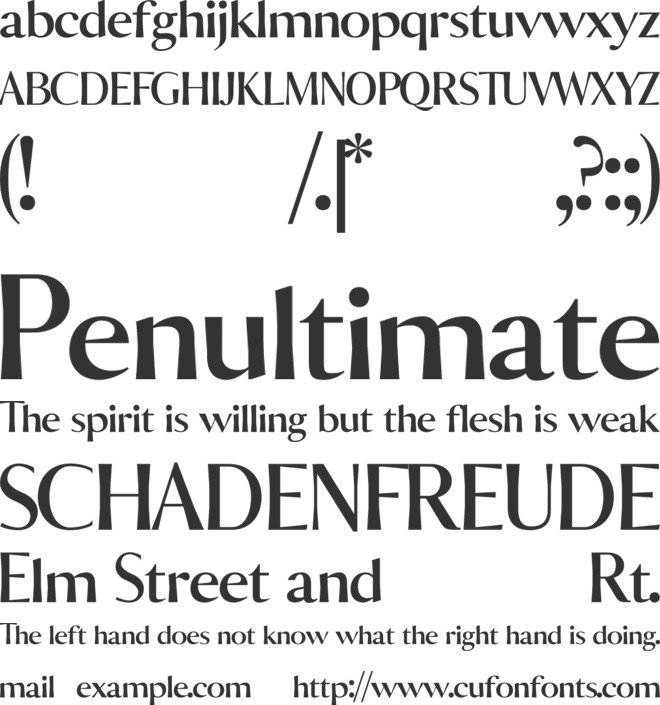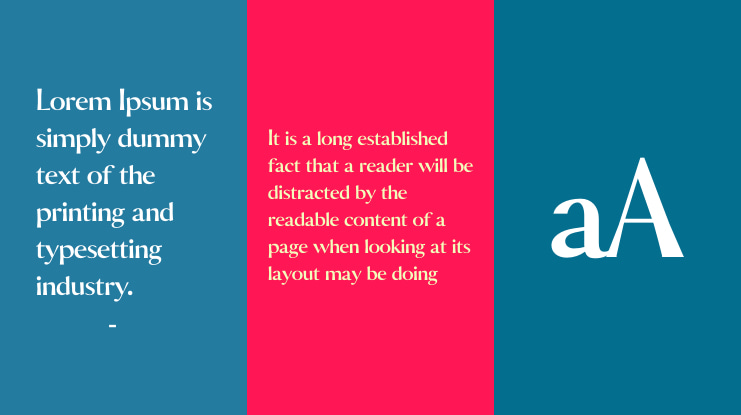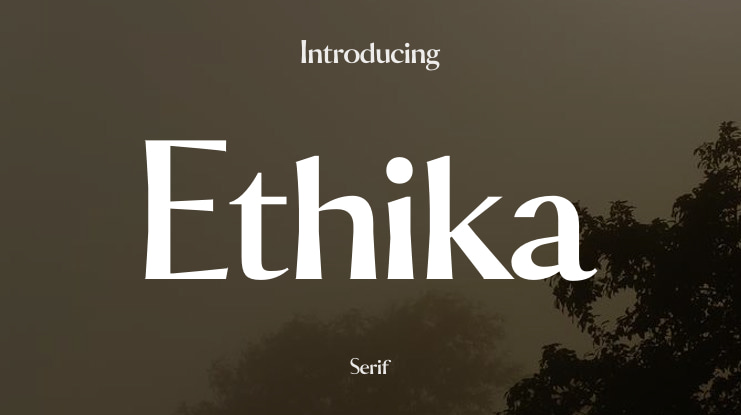
Ethika Font
🎨 Font Name: ETHIKA by Minimalist Art Studio
🎨 Font Description: ETHIKA is a bold, modern serif typeface with Regular and Italic styles, multilingual support, and versatile formats—perfect for editorial, branding, and high-impact design.
✔ Complete Latin set + multilingual diacritics
✔ Alternates, stylistic sets & ligatures
✔ Numbers, small caps, and extended punctuation
✔ Bonus italics and family styles